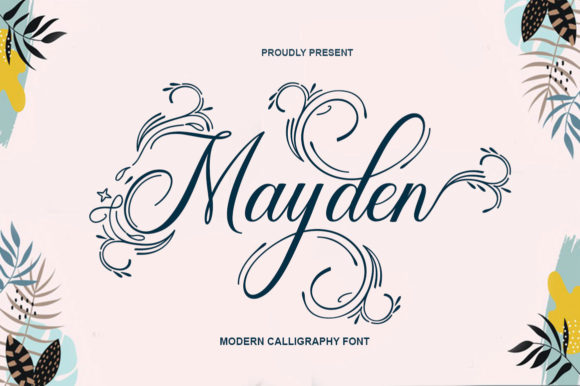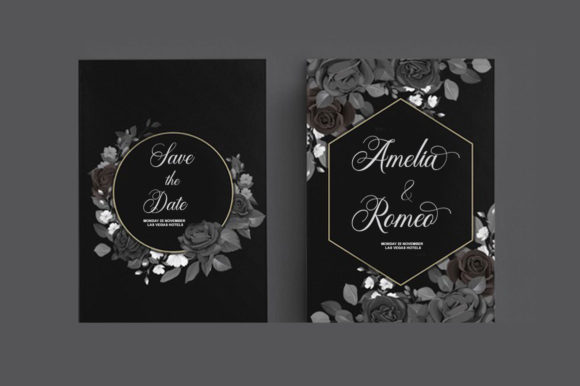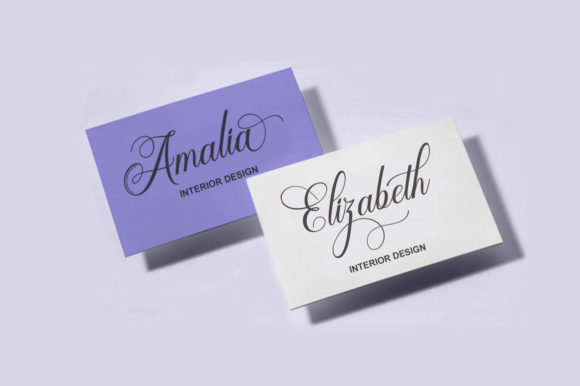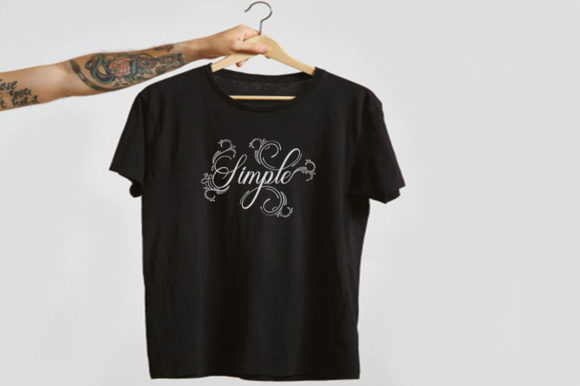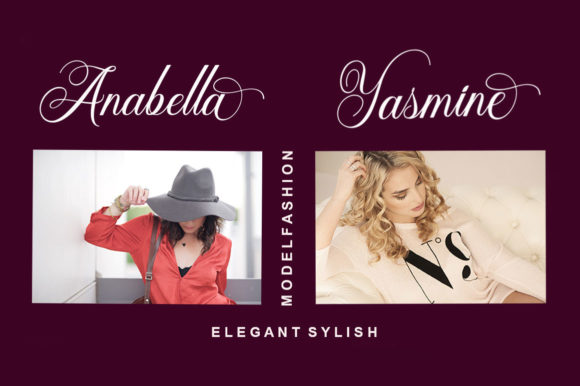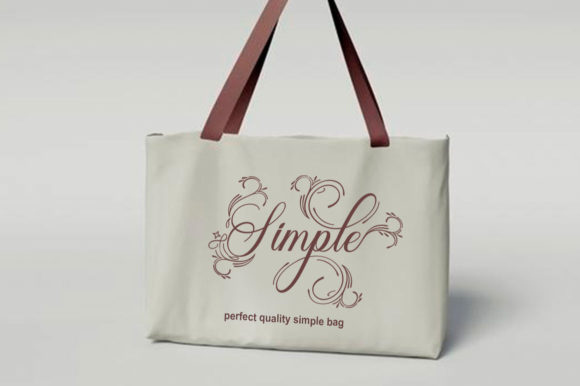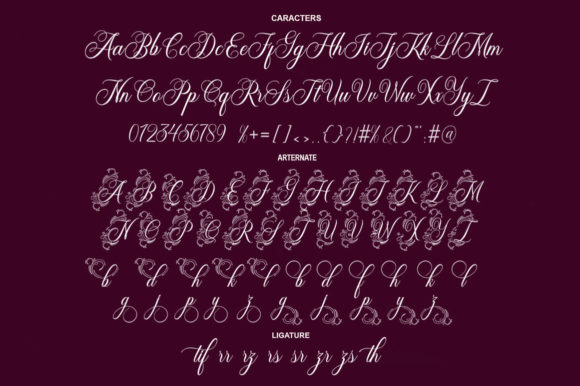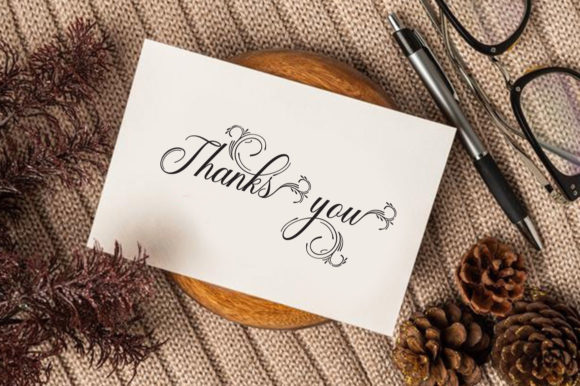
About Mayden Font
Mayden is a magical script font carefully created with a touch of elegance. This font is PUA encoded which means you can access all of the glyphs and swashes with ease!